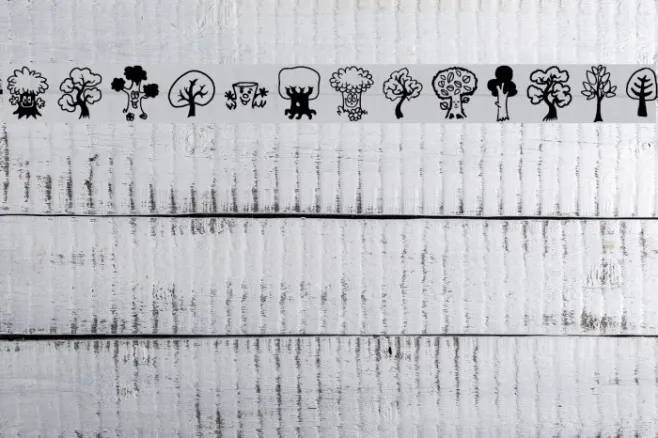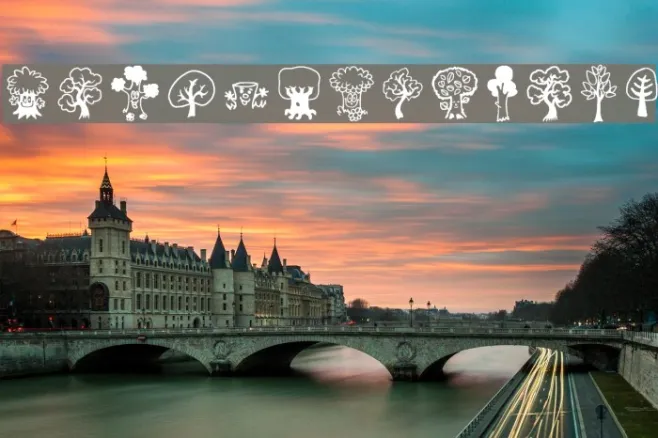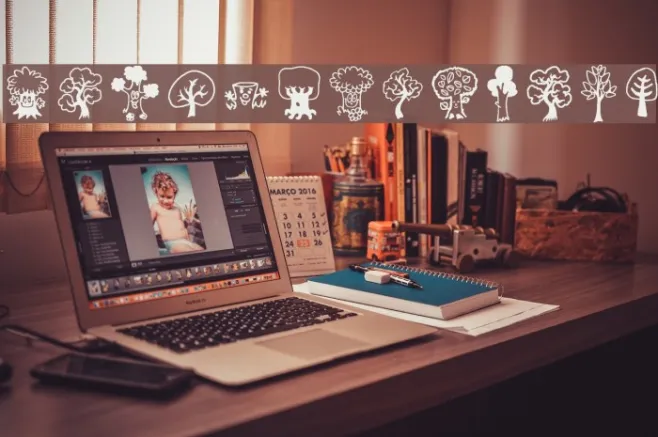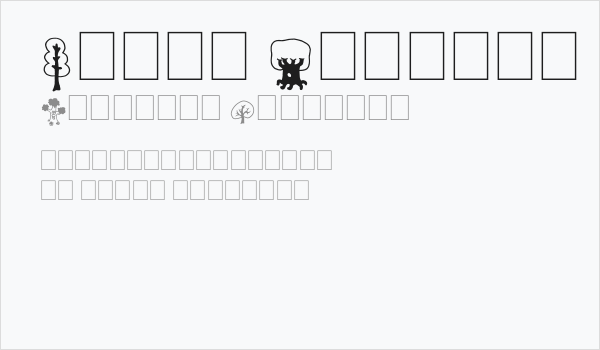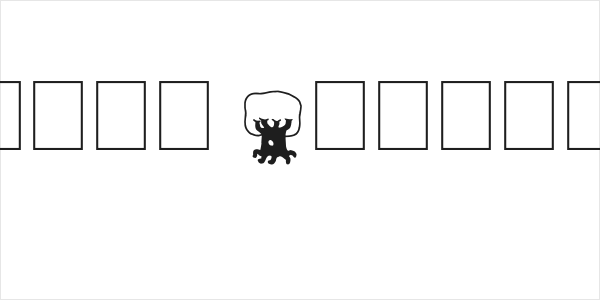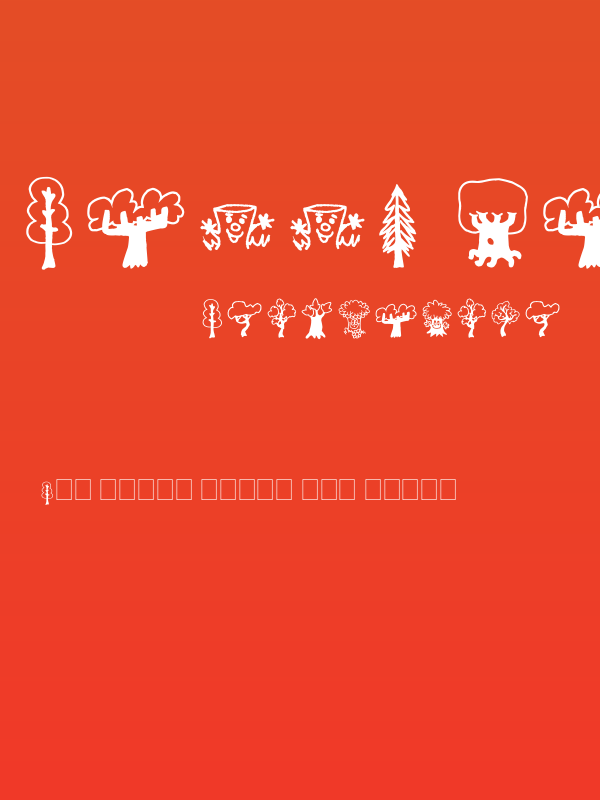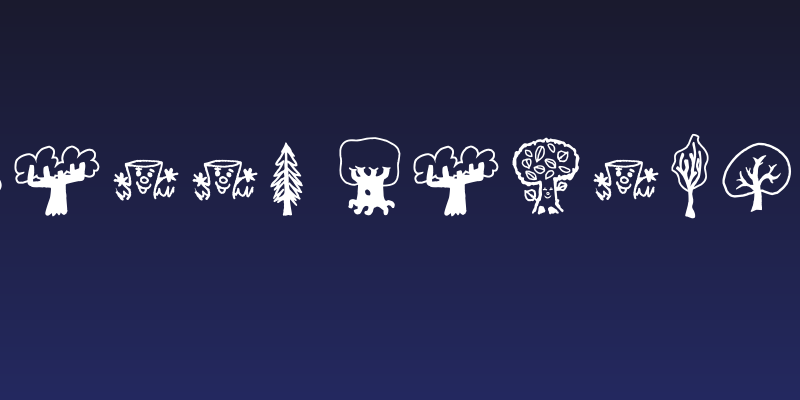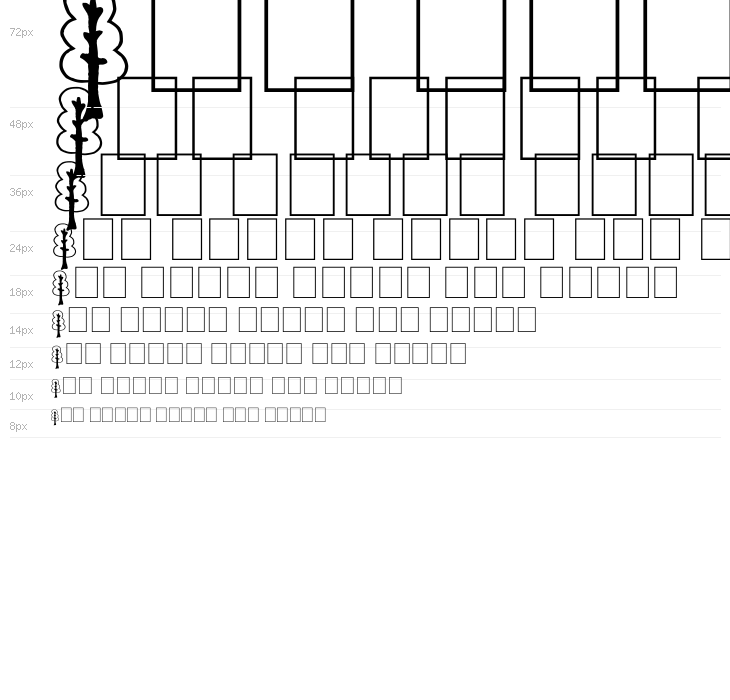
Trees Friends Font
Trees Friends Description
A playful, hand-drawn decorative font featuring whimsical tree illustrations as letterforms and symbols. Each character is uniquely stylized with cartoon-like details, evoking a friendly and imaginative atmosphere.
| Overall Style | Playful, Whimsical, Hand-drawn |
| Use Case | Headlines, Posters, Logos, Themed event materials |
| Proposed Projects | ChildrenΓ’β¬β’s books, educational materials, eco-friendly branding, posters, greeting cards, environmental campaigns. |